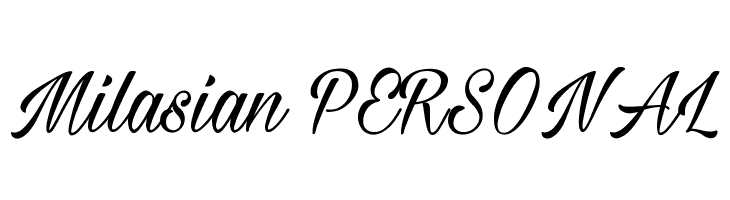
A modern, condensed, and thin font with a sleek and elegant design.
A bold, expanded font with high contrast and strong visual impact.
A bold, modern font with a strong and uniform appearance.
A bold, condensed typeface with minimal contrast and strong visual impact.
A bold, condensed typeface perfect for impactful headlines.
A bold, heavy font with thick strokes and rounded edges, perfect for impactful designs.
An elegant, flowing script font with a sophisticated cursive design.
An elegant, flowing script font with ornate, decorative letterforms.
A bold, modern cursive font with high contrast and tight spacing.
A bold, graffiti-inspired font with dynamic curves and sharp angles.
A graffiti-inspired, highly decorative font with abstract, flowing characters.
A bold, graffiti-inspired font with dynamic, flowing lines and urban energy.
A bold, italic font with a dynamic and modern style.
A flowing, cursive script font with elegant, connected strokes.
A bold, outlined font with a playful, modern style.
An intricate, decorative font with abstract patterns within each character.
A decorative font with intricate patterns and bold outlines.
A bold, blocky font with thick strokes and rounded edges.
A decorative font with intricate pattern-filled characters.
A bold, modern sans-serif font with smooth, rounded edges and consistent character spacing.
A bold, italic font with a modern and dynamic style.
A sleek, modern font with elongated, narrow characters and a minimalist design.
A modern, italicized font with smooth curves and a sleek design.
A sleek, modern sans-serif font with smooth curves and a clean design.
A bold, italic font with a dynamic and modern style.
A sleek, modern font with thin, elongated characters and smooth curves.
A sleek, modern italic font with thin, elongated characters.
A bold, italicized font with smooth, rounded edges and a modern, sleek appearance.
A modern, light, and italic font with a sleek and elegant design.
A bold, rounded font with a modern and playful style.
( Måns Grebäck - www.mansgreback.com )
A sleek, thin, italicized font with a modern and elegant design.
( Måns Grebäck - www.mansgreback.com )
A modern, sleek sans-serif font with elongated, slightly curved characters.
( Måns Grebäck - www.mansgreback.com )
A bold, rounded font with a modern and playful style.
( Måns Grebäck - www.mansgreback.com )
A dynamic script font with elegant curves and artistic flair.